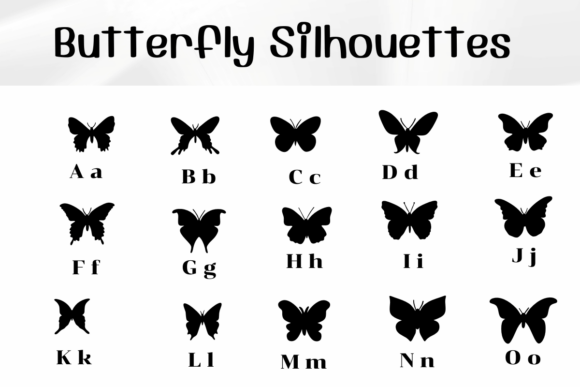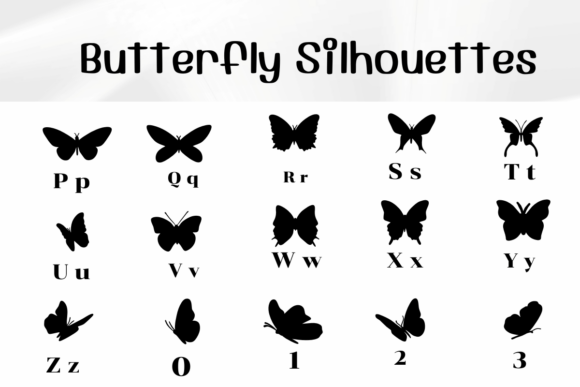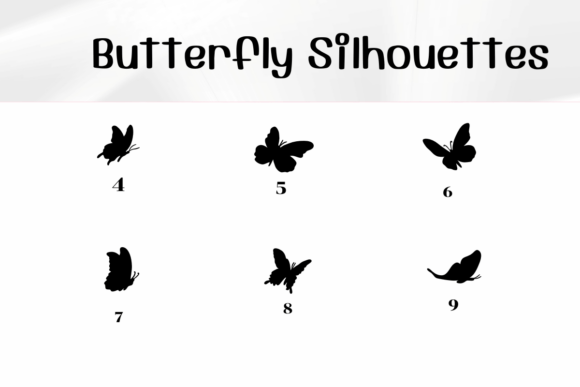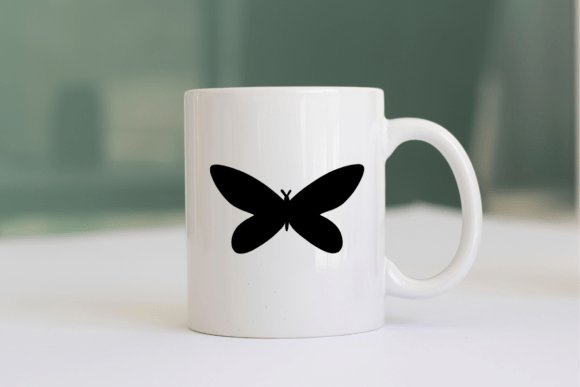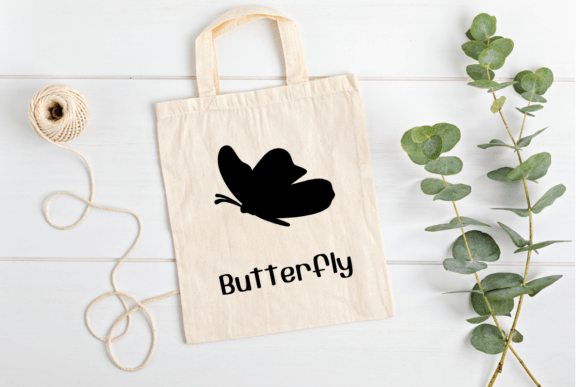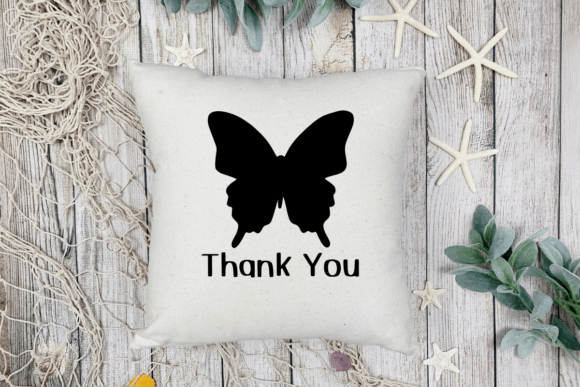
Introduction to Butterfly Silhouettes Font
Butterfly Silhouettes is a dingbats font with a gorgeous theme.
This font can enhance your creative projects such as wedding invitations, DIY, crafts, decorations, logos, and many other creative ideas .
Key Features of Butterfly Silhouettes Font